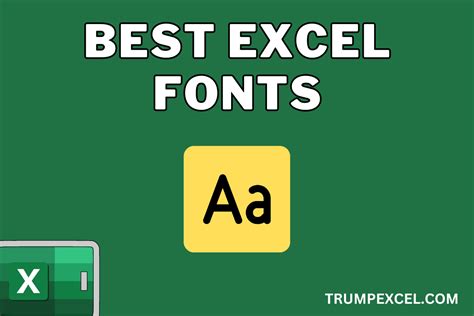
Adding Fonts To Excel: A Simple Guide
Adding Fonts to Excel: A Simple Guide
Hey guys! Ever felt like your Excel spreadsheets are looking a little… bland? Maybe the default fonts just aren’t cutting it, and you need to spice things up with something a bit more you . Well, you’re in luck! Adding fonts to Excel is super easy, and it can make a huge difference in how professional and visually appealing your workbooks look. In this guide, we’ll walk you through the simple steps to add new fonts to your system, so they become available in Excel and all your other applications. Let’s dive in!
Why Add Fonts to Excel?
Before we get started, let’s talk about why you might want to add fonts to Excel in the first place. First and foremost, custom fonts enhance visual appeal in your spreadsheets. Default fonts like Calibri or Arial are functional, but they can be a little boring. Using unique fonts can make your spreadsheets more engaging and easier to read. Imagine creating a presentation with a sleek, modern font that perfectly matches your company’s branding – it instantly elevates the professionalism of your work!
Consistency is Key . If you’re creating a series of reports or dashboards, using the same fonts across all documents helps maintain a consistent look and feel. This is especially important for branding purposes. Adding custom fonts ensures that everyone who views your documents sees the same fonts, regardless of whether they have the default font selection. By standardizing fonts , you minimize discrepancies and make your documents look polished and professional. This is particularly crucial for presentations and reports that are shared widely.
Improved Readability is the ultimate goal. Certain fonts are simply easier to read than others, especially when dealing with large amounts of data. Choosing a font that is clear and legible can significantly improve the readability of your spreadsheets, making it easier for you and others to analyze the information. If you’re working with specialized data, such as financial figures or scientific notation, specific fonts designed for clarity in these areas can be invaluable. Ultimately, selecting the right font enhances comprehension and reduces the risk of misinterpretation. Prioritizing readability ensures that your message is effectively communicated.
Furthermore, adding fonts supports branding in your Excel documents. Using brand-specific fonts helps to reinforce your company’s identity in every piece of content you create. This level of detail shows attention to detail and strengthens your brand’s visual presence. Whether it’s internal reports or client-facing presentations, incorporating your brand’s fonts helps to maintain a consistent and professional image. So, if you’re looking to make your Excel sheets more visually appealing, consistent, and readable, adding fonts is the way to go!
Once you’ve found a font you like, download it to your computer. Fonts usually come in a ZIP file, so you’ll need to extract the files before you can install them. Look for files with the extensions .ttf (TrueType Font), .otf (OpenType Font), or .fon (Font file). These are the actual font files that you’ll need to install. Make sure you download fonts from reputable sources to avoid potential security risks. Downloading from well-known websites like Google Fonts or Adobe Fonts is generally safe, but always be cautious when downloading from less familiar sources. With a bit of searching, you’ll find the perfect font to make your Excel sheets shine.
Installing Fonts on Your System
Now that you’ve downloaded your new font, it’s time to install it on your system. The process is slightly different depending on whether you’re using Windows or macOS, so let’s cover both. For Windows users , the easiest way to install a font is to right-click on the font file (.ttf, .otf, or .fon) and select “Install”. This will automatically install the font and make it available to all applications on your computer, including Excel. Alternatively, you can manually install fonts by copying the font files to the Fonts folder in your Windows directory. To do this, open File Explorer, navigate to C:\Windows\Fonts , and paste the font files into this folder. Windows will then install the fonts automatically.
For macOS users , the process is equally straightforward. Simply double-click on the font file, and it will open in Font Book, the built-in font management application. Click the “Install Font” button at the bottom of the Font Book window to install the font. You may be prompted to enter your administrator password to authorize the installation. Once the font is installed, it will be available in all your applications, including Excel.
So, there you have it! Adding fonts to Excel is a simple yet powerful way to enhance the visual appeal and readability of your spreadsheets. By following the steps outlined in this guide, you can easily find, download, install, and use new fonts to create professional-looking workbooks that stand out from the crowd. Whether you’re creating reports, dashboards, or presentations, the right font can make a big difference in how your message is received. So go ahead, experiment with different fonts, and unleash your creativity in Excel! Happy spreadsheeting!